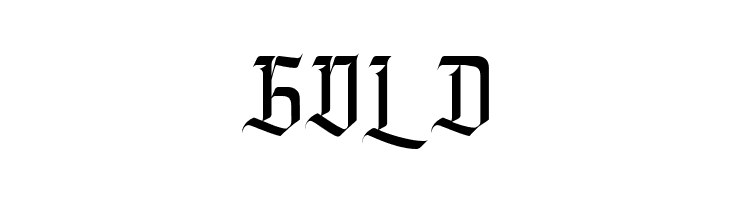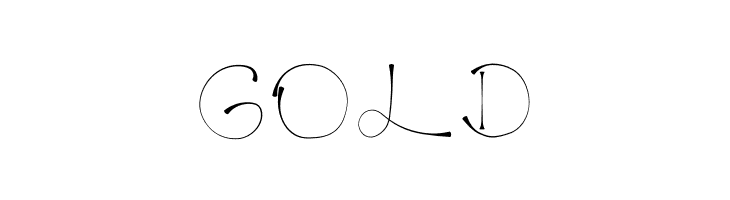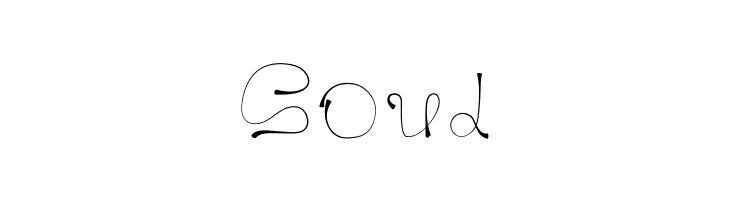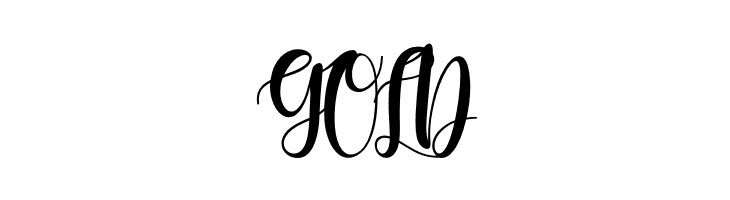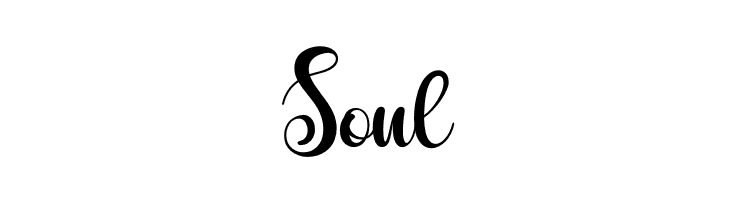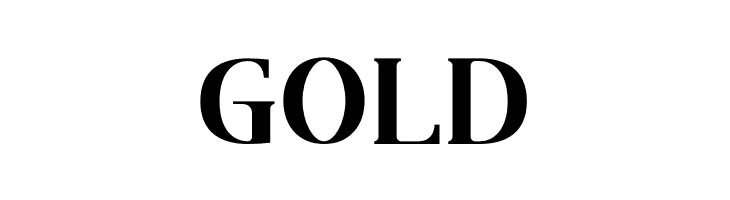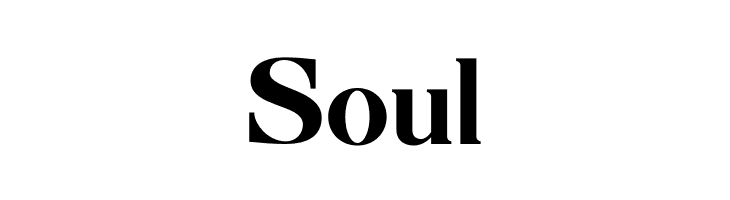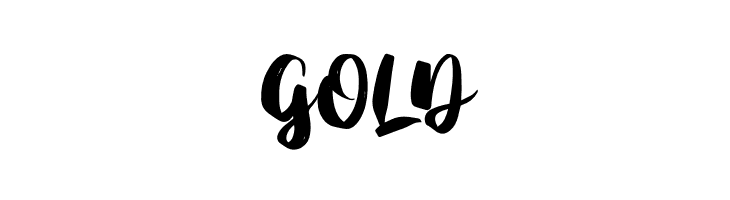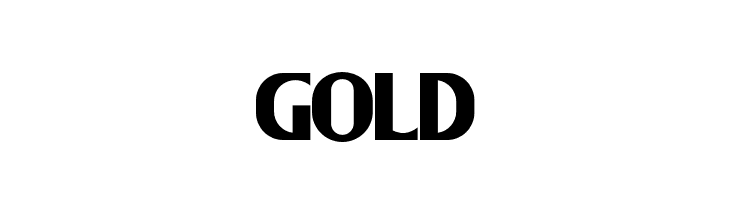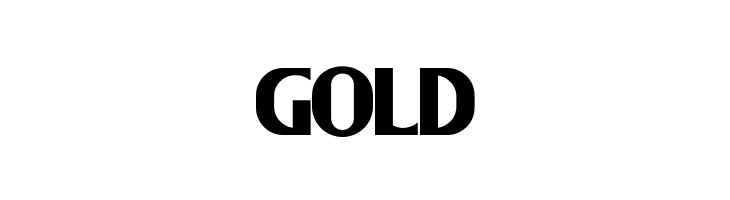
• AgilScript
A bold, expressive script font with fluid, cursive strokes and dynamic flow.
• AGIS
A whimsical and playful font with looping and swirling strokes.
• Agise rujdi Regular
A bold, dramatic Blackletter-style font with intricate details and sharp angles.
• Agise rujdi Regular
A bold, angular Blackletter font with a historical and elegant style.
• Agites FREE
A bold, modern font with geometric elements and strong visual impact.
• AgitesFREE
A bold, modern font with dynamic angles and clean lines.
• Agitha
An elegant, flowing script font with smooth, cursive lines and graceful curves.
• Agleisya
A lively, expressive script font with a modern, handwritten feel.
• Agleisya
A playful and elegant handwritten script font with a dynamic flow.
• Agne
A classic serif font with high contrast and elegant strokes.